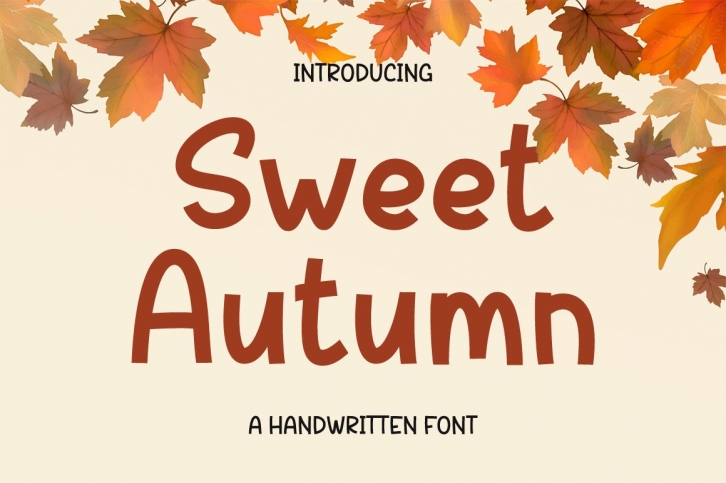
Sweet Autumn a fun and smart-looking handwritten font. It looks great on invitations, thank you cards, quotes, greeting cards, logos, business cards, and every other design which needs a customized touch.